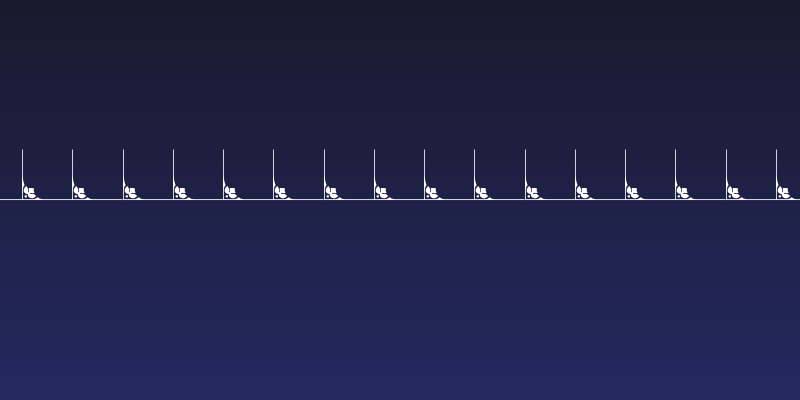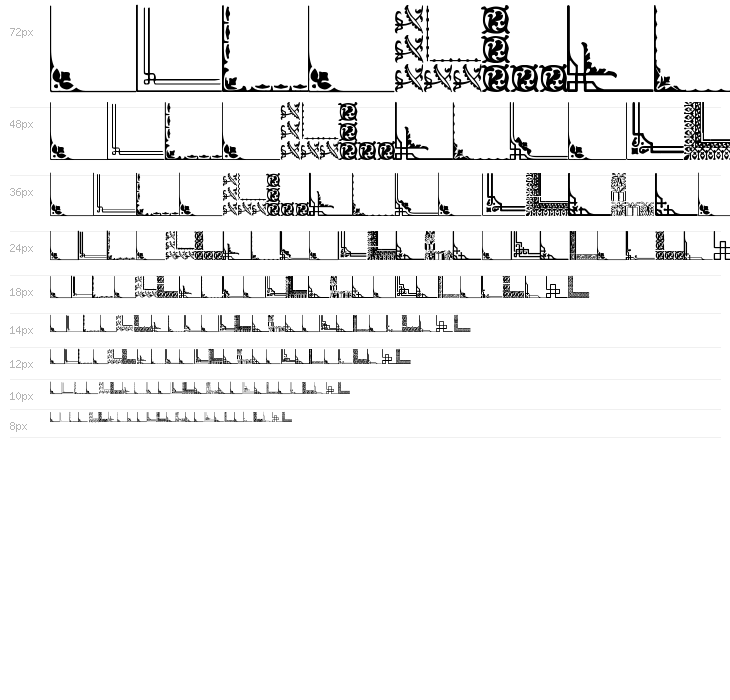
Vintage Decorative Corners 32 Font
Vintage Decorative Corners 32 Description
A decorative set of vintage-inspired corner ornaments with intricate line work and floral or geometric patterns, designed to embellish the corners of layouts or frames. The glyphs are not traditional alphanumeric characters but rather ornamental motifs with varying levels of detail and complexity.
| Overall Style | Vintage, Decorative |
| Use Case | Borders, Frames, Decorative accents |
| Proposed Projects | Invitations, certificates, decorative borders, vintage-themed posters, scrapbooking, packaging design. |